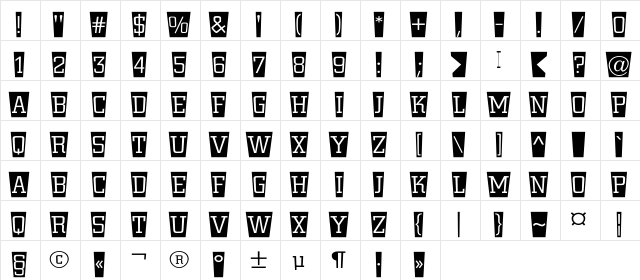
a_CityNovaTtlCmSwLt Regular
Design Context for a_CityNovaTtlCmSwLt Typeface
a_CityNovaTtlCmSwLt offers clean, dependable letterforms without strong stylistic allegiance, making it a practical choice for designers who need flexibility.
Pro Tip: Pair a_CityNovaTtlCmSwLt with a font of contrasting weight or personality to build a more expressive typographic hierarchy.